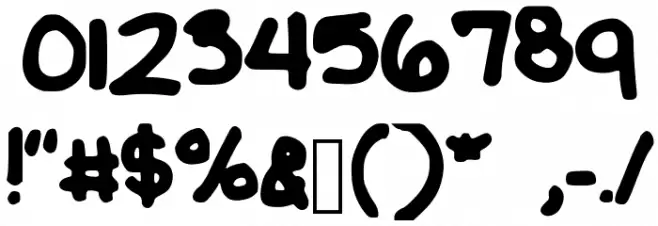
Enduratize Font
Enduratize Description
This font exudes a playful and bold character, with its thick, rounded strokes and informal style. The letters are crafted with a hand-drawn aesthetic, giving it a whimsical and approachable feel. The uppercase and lowercase letters maintain a consistent weight, contributing to a cohesive look. The numbers and special characters follow the same playful design, ensuring uniformity across all glyphs. Its boldness makes it stand out, while the rounded edges soften its appearance, making it suitable for friendly and casual applications. The font's style is reminiscent of handwritten notes or doodles, adding a personal touch to any project.
A playful, bold, and rounded font with a hand-drawn aesthetic from Handwritten fonts.
- Proposed Projects: Ideal for children's books, playful branding, casual invitations, and creative posters.
- Overall Style: Playful